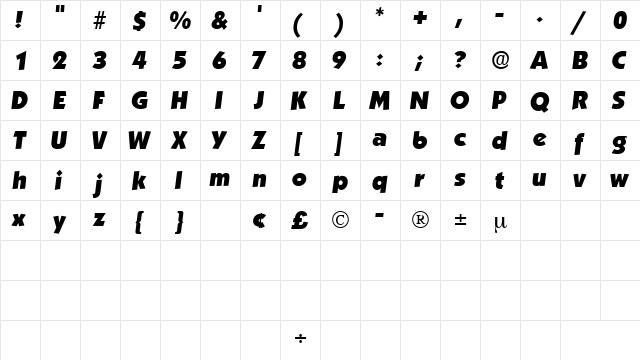
AnakeimDisplaySSK Italic
Design Context for AnakeimDisplaySSK Typeface
AnakeimDisplaySSK is built around its visual character rather than neutral utility — its distinctive forms are designed to make an impression at display sizes. Its italic angle brings a sense of urgency and motion to the letterforms.
Font Pairing: Pair with a clean neutral sans-serif for body copy to let AnakeimDisplaySSK's character lead without overwhelming the composition.
Pro Tip: Treat AnakeimDisplaySSK as the centrepiece of your typographic hierarchy. One strong heading set in a decorative face can carry an entire layout.